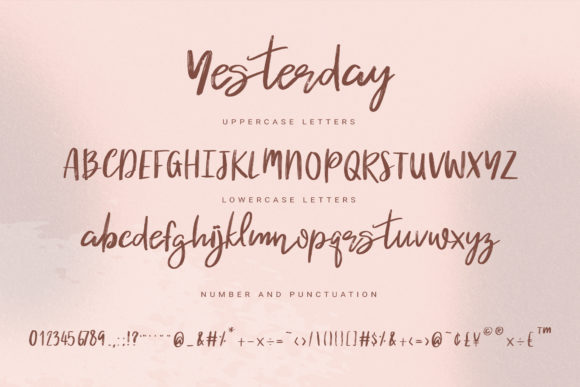
Yesterday Font
About Yesterday Font
Introducing “Yesterday,” a flowing handwritten font that captures the essence of nostalgia and elegance. Its captivating allure makes it an ideal choice for a wide range of design projects, infusing a touch of handcrafted sophistication into every creation. Whether you’re working on branding, quotes, invitations, or any other design, “Yesterday” will take you on a journey back in time with its distinct and timeless charm.
With “Yesterday,” you have a font that flows with graceful fluidity, reminiscent of the cherished memories of days gone by. Its authentic handwritten style brings an air of uniqueness and refinement to your designs, creating a visual experience that is both elegant and captivating. Whether you’re crafting vintage-inspired branding, evocative quotes, or nostalgic invitations, this font adds a layer of beauty that resonates deeply.
The versatility of “Yesterday” lies in its ability to seamlessly complement various design styles and themes. Its flowing and elegant appeal makes it a dependable choice for all your creative endeavors that seek to evoke emotions and convey a sense of timelessness.
Unleash your creativity and witness how “Yesterday” enhances your designs with its elegant and refined touch. Whether you’re designing sentimental logos, creating wistful stationery, or producing captivating social media graphics, this font will infuse your work with a sense of sentimentality and allure that connects with the heart.
So, embrace the allure of “Yesterday” and let it become a vessel of cherished memories in your design toolkit. Allow its distinct and timeless style to inspire your designs, transforming them into spectacular works that carry the essence of bygone eras. Whether you’re an experienced designer or a passionate enthusiast, “Yesterday” empowers you to create visuals that stir emotions and make a statement. Let “Yesterday” be the key to unlocking the beauty of nostalgia and elegance in your designs, and watch as it elevates your projects to new levels of excellence and emotional resonance!